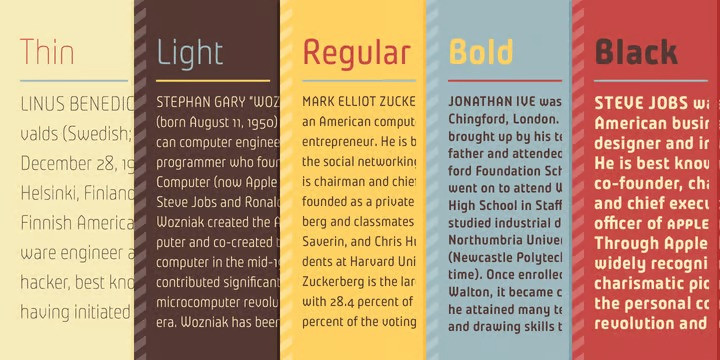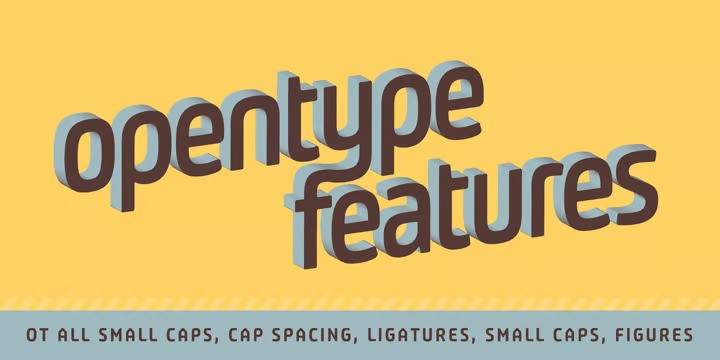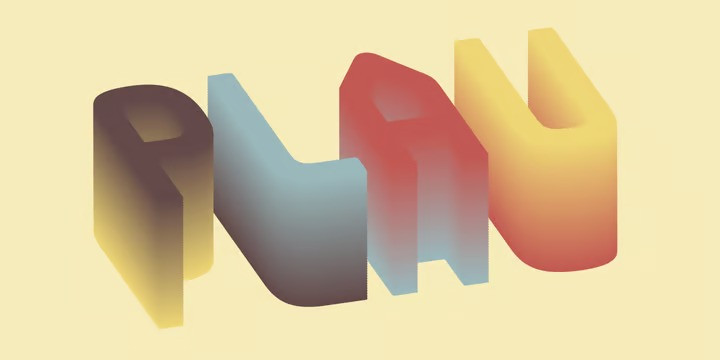
Plau Font
Looking for a unique, stylish, and fun font for your next project?  Plau Sans Serif Font Family, Futurist typeface from the programming era, Plau is a sans-serif with rounded corner personality and interestingly deliberate lettershapes. Comfortable in headlines, reads surprisingly well in longer passages of text. Includes the following OpenType features: OT All Small Caps, Fraction, Proportional/Tabular Oldstyle and lining figures, subscript and superscript numbers.